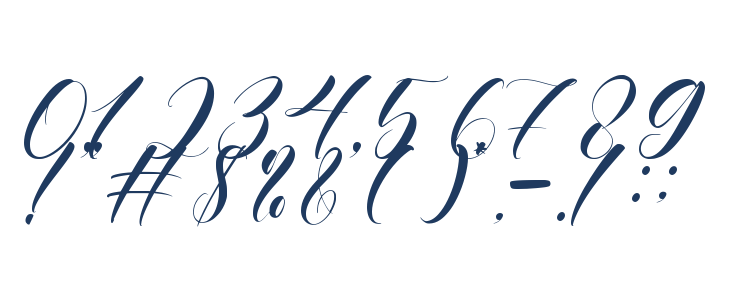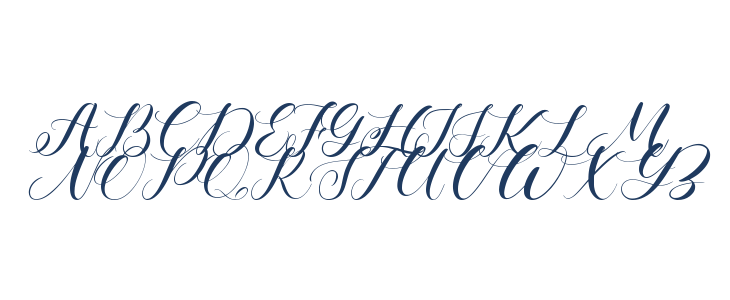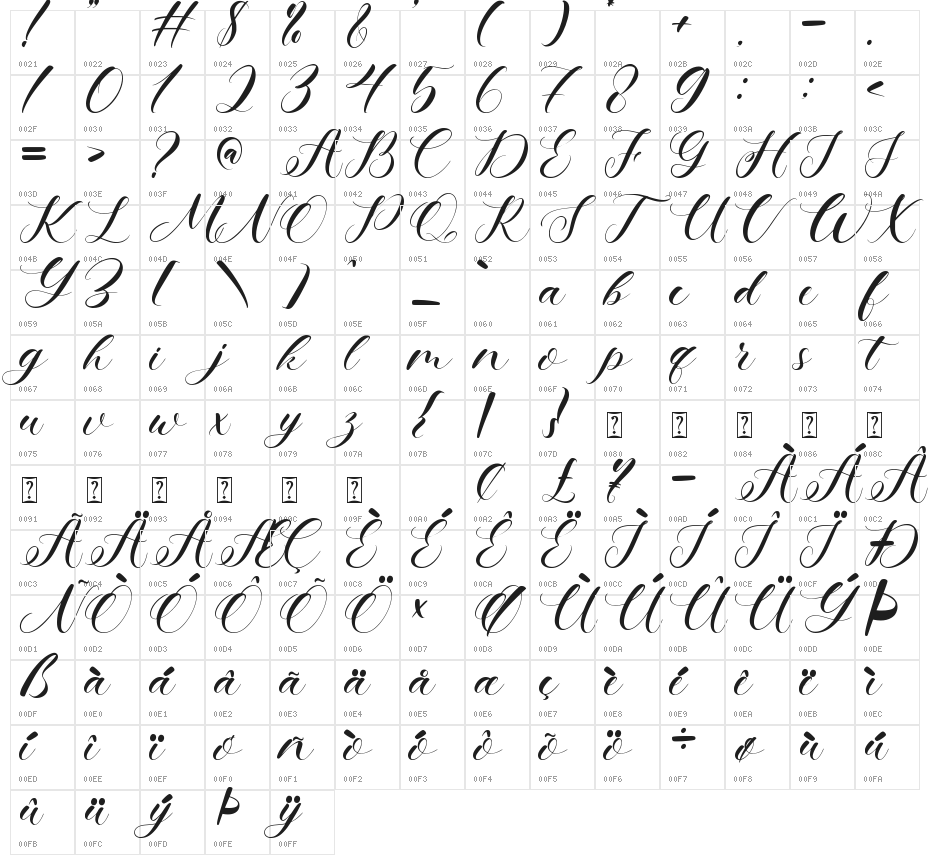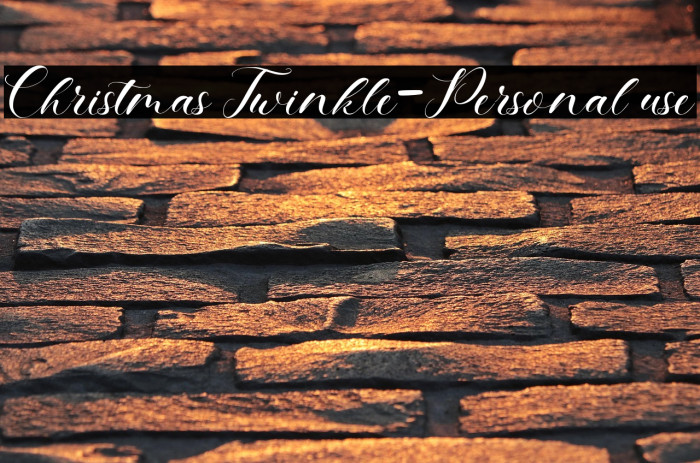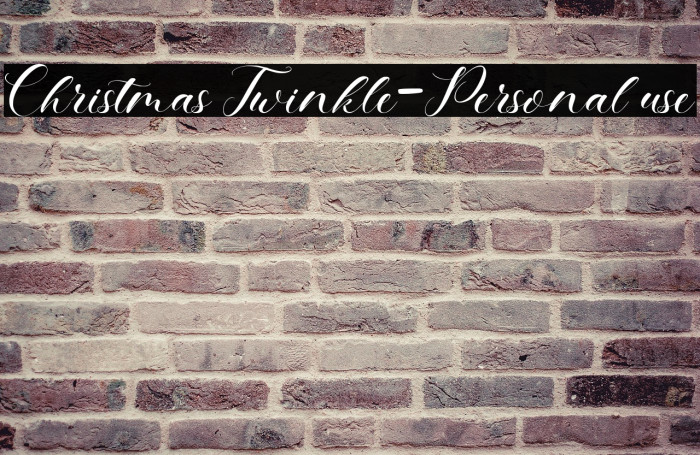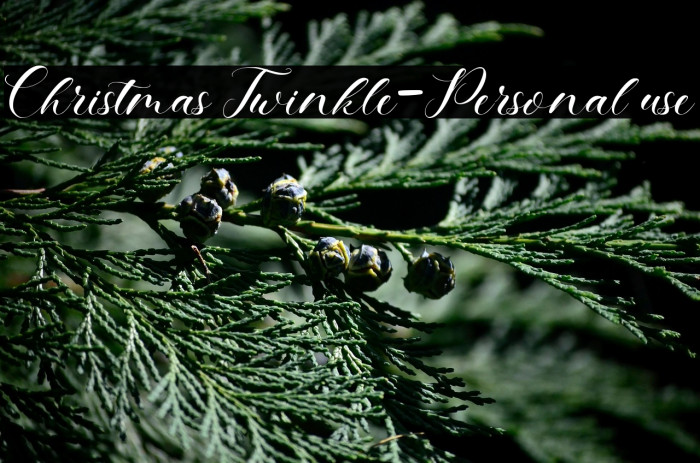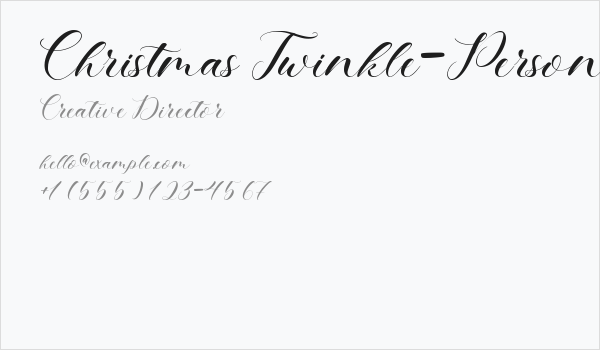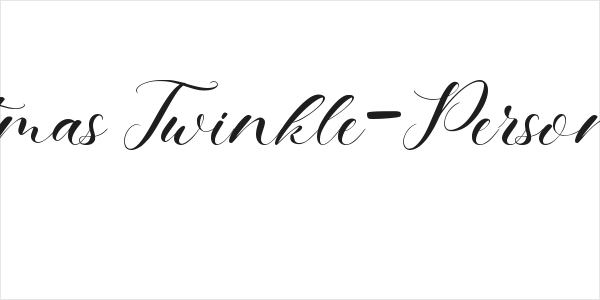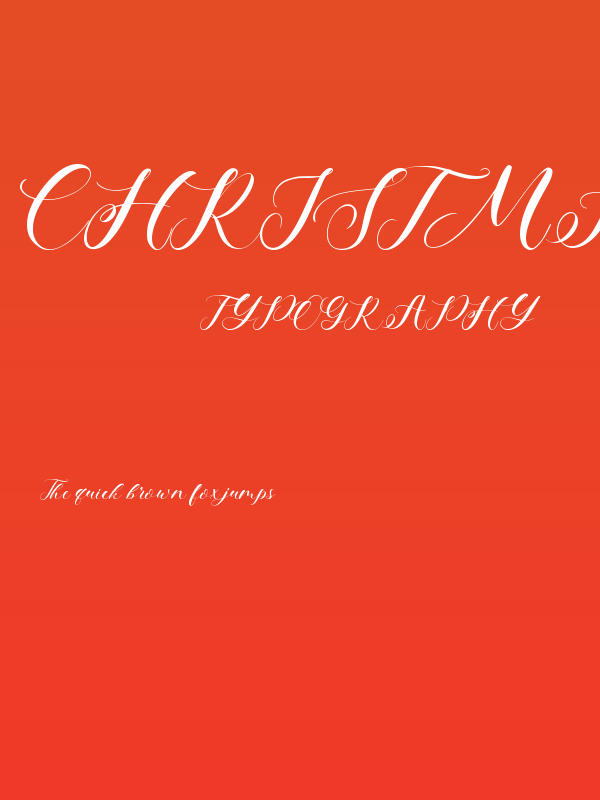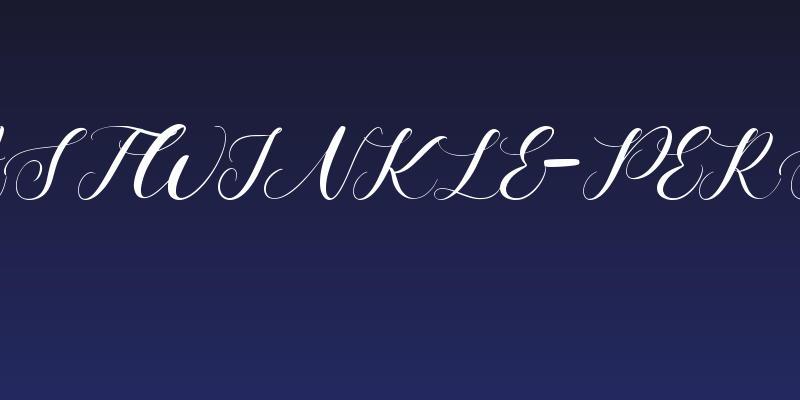
Christmas Twinkle-Personal use Font
Christmas Twinkle-Personal use Description
Elegant, flowing script font with high contrast between thick and thin strokes, featuring ornate swashes and flourishes on many characters. The letterforms are connected and highly decorative, evoking a festive and sophisticated feel.
| Overall Style | Decorative, Elegant, Festive |
| Use Case | Headlines, Invitations, Logos, Decorative text |
| Proposed Projects | Holiday cards, wedding invitations, event branding, luxury packaging, decorative headlines. |